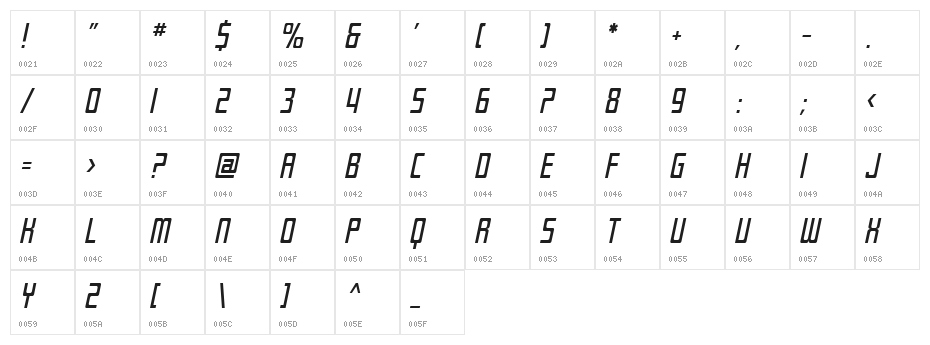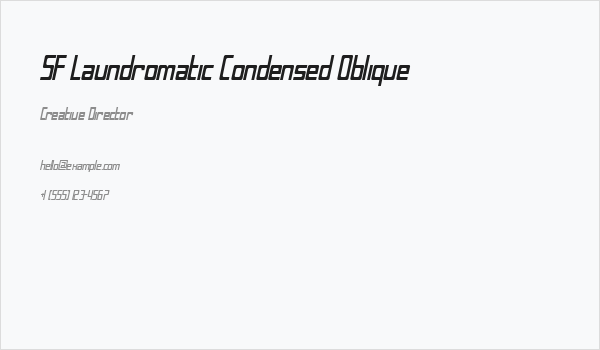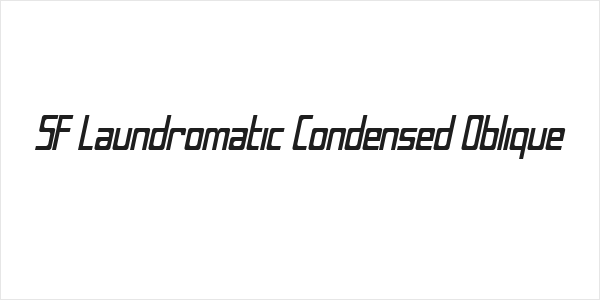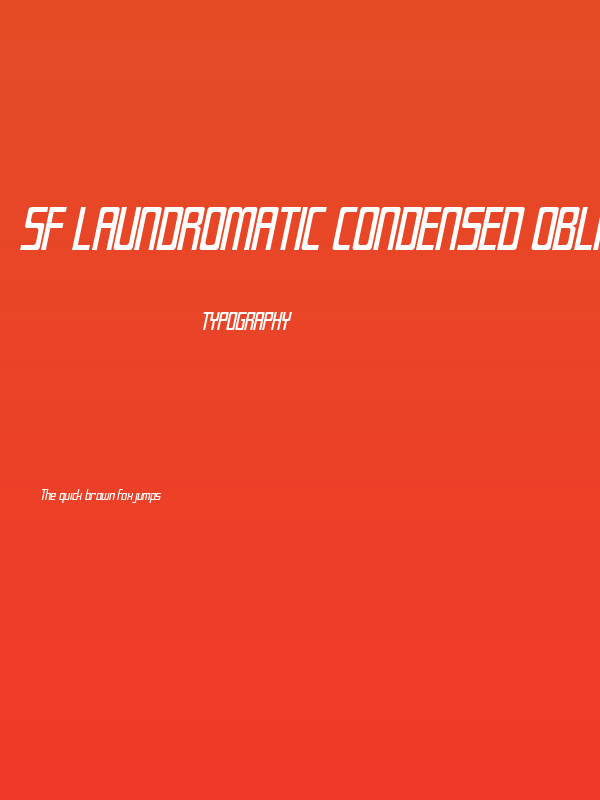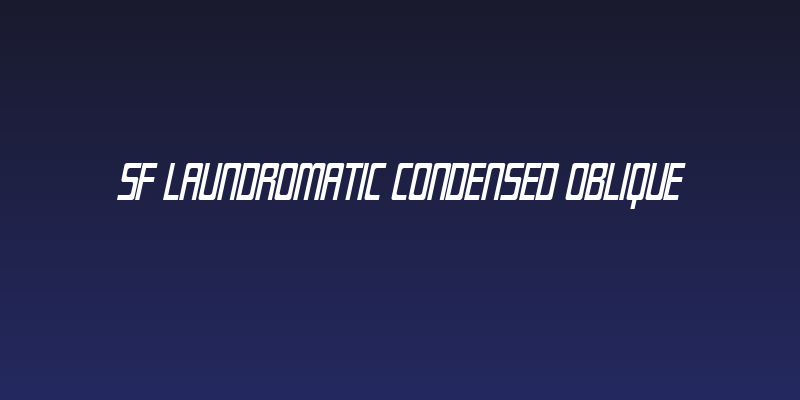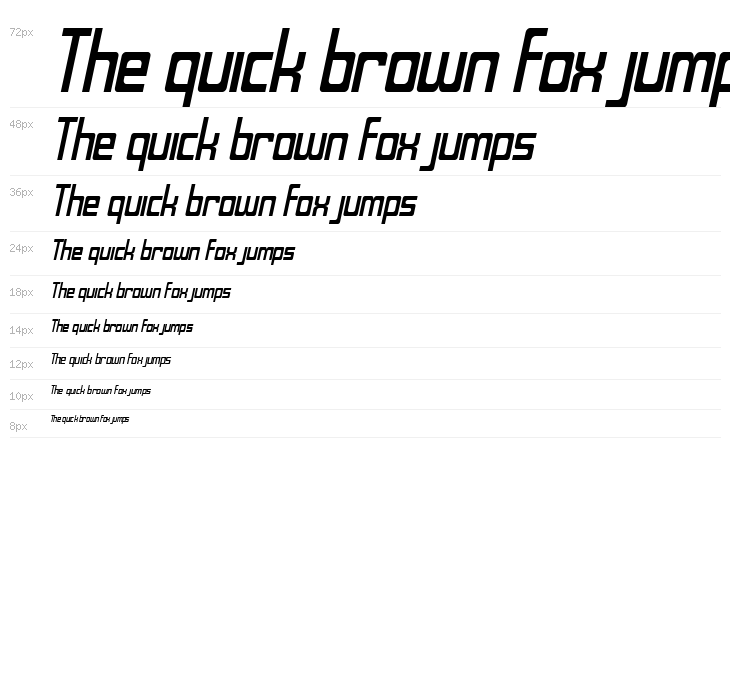
SF Laundromatic Condensed Oblique Font
SF Laundromatic Condensed Oblique Description
This font features a modern, condensed style with an oblique slant, giving it a dynamic and forward-moving appearance. The characters are tightly spaced, enhancing the compact look, while maintaining legibility. The design is sleek and geometric, with consistent stroke widths that provide a uniform appearance across all characters. The uppercase and lowercase letters are well-balanced, and the numerals are distinct and easy to read. Special characters are included, maintaining the same stylistic features as the alphanumeric characters.
| Proposed Projects | Ideal for futuristic branding, tech-related projects, sports team logos, and dynamic poster designs. |